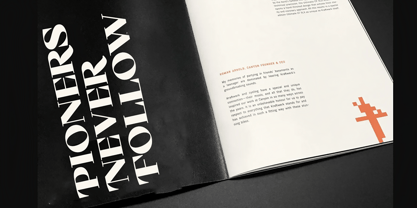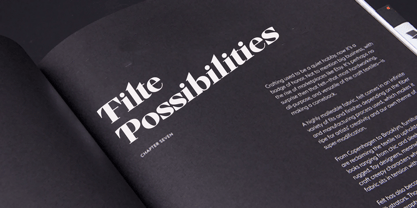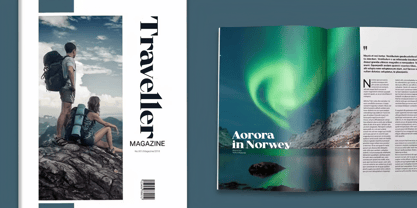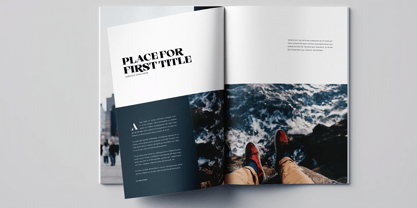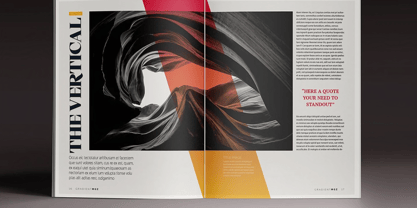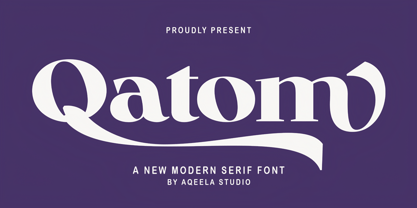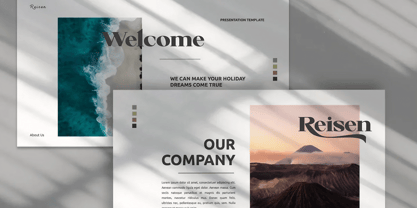
Qatom
by Aqeela Studio
The Qatom Font Family was designed by Muhammad Nasir and published by Aqeela Studio. Qatom contains 1 styles. More about this family
The "Qatom" font isn't widely recognized as a standard font. However, if you are referring to a specific style or custom font, you can achieve a bold serif look with CSS or a graphic tool. Here's an example of how to describe content in a bold serif style that could fit the idea of "Qatom":
Designers: Muhammad Nasir
Foundry: Aqeela Studio